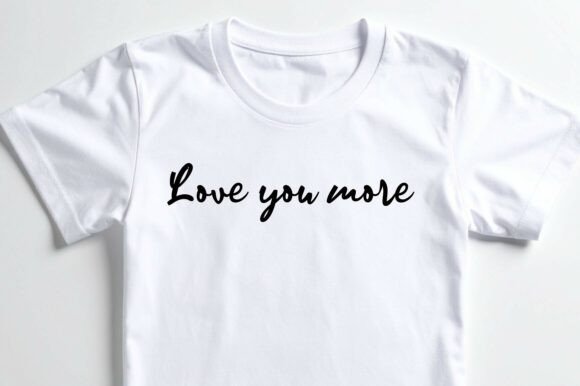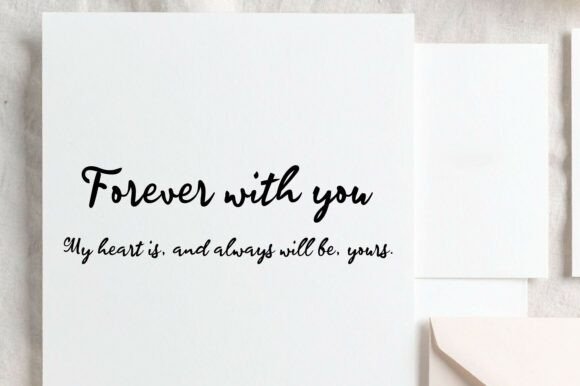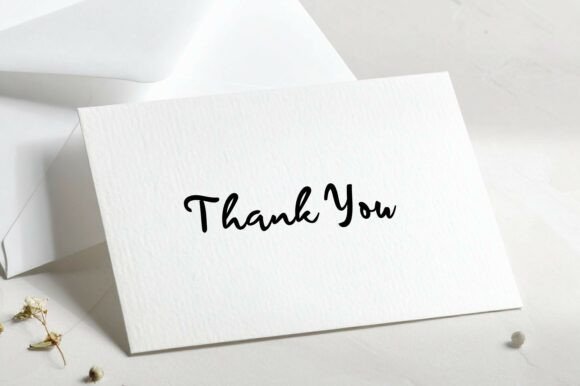
Ahead Lettering Font: Elevate Your Designs with a Charming Handwritten Script
In the world of typography, few fonts manage to strike a balance between elegance and approachability. Ahead Lettering Font is one such gem that has captured the hearts of designers and crafters alike. This charming and authentic handwritten script font is designed to bring a personal touch to your designs, making it an excellent choice for a wide range of creative projects.
The Distinctive Charm of Ahead Lettering
Ahead Lettering boasts distinctive flowing strokes and natural variations that set it apart from more structured typefaces. Its unique character is reminiscent of handwritten scripts, yet it maintains excellent readability, ensuring that your messages are conveyed clearly and effectively. This blend of artistic flair and legibility makes Ahead Lettering an ideal choice for designers seeking to add a touch of sophistication to their work.
One of the standout features of Ahead Lettering is its versatility. This font is compatible with a wide range of creative projects, from branding and invitations to social media graphics and merchandise. Whether you’re looking to create a friendly, sophisticated, or artisanal aesthetic, Ahead Lettering is well-suited to help you achieve your design goals.
Ahead Lettering is a favorite among designers and crafters who appreciate the value of a unique and memorable font. Its elegant and inviting feel makes it an excellent choice for:
- Branding: Establish a strong brand identity with Ahead Lettering’s distinctive and charming script.
- Invitations: Create beautiful and personalized invitations for special occasions, such as weddings, birthdays, and baby showers.
- Social Media Graphics: Elevate your social media presence with eye-catching graphics that showcase Ahead Lettering’s elegant flair.
- Merchandise: Add a touch of sophistication to your merchandise, such as t-shirts, mugs, and tote bags, with Ahead Lettering’s unique script.
Why Choose Ahead Lettering?
With so many fonts available, why choose Ahead Lettering? Here are just a few reasons why designers and crafters love this charming font:
- Unique Character: Ahead Lettering’s distinctive flowing strokes and natural variations give it a personal and inviting feel that sets it apart from other fonts.
- Excellent Readability: Despite its artistic flair, Ahead Lettering maintains excellent readability, ensuring that your messages are conveyed clearly and effectively.
- Versatility: This font is compatible with a wide range of creative projects, making it an excellent addition to your font library.
Ahead Lettering Font is a charming and authentic handwritten script font that is sure to elevate your designs. Its distinctive flowing strokes, natural variations, and excellent readability make it an ideal choice for designers and crafters seeking to add a touch of elegance and sophistication to their work. With its versatility and unique character, Ahead Lettering is a valuable addition to any font library.
Whether you’re a seasoned designer or a crafty DIY enthusiast, Ahead Lettering is sure to inspire your creativity and help you create stunning designs that leave a lasting impression.